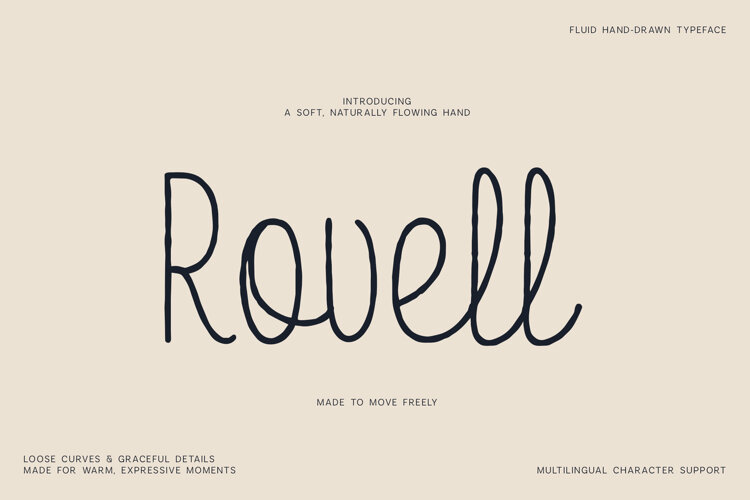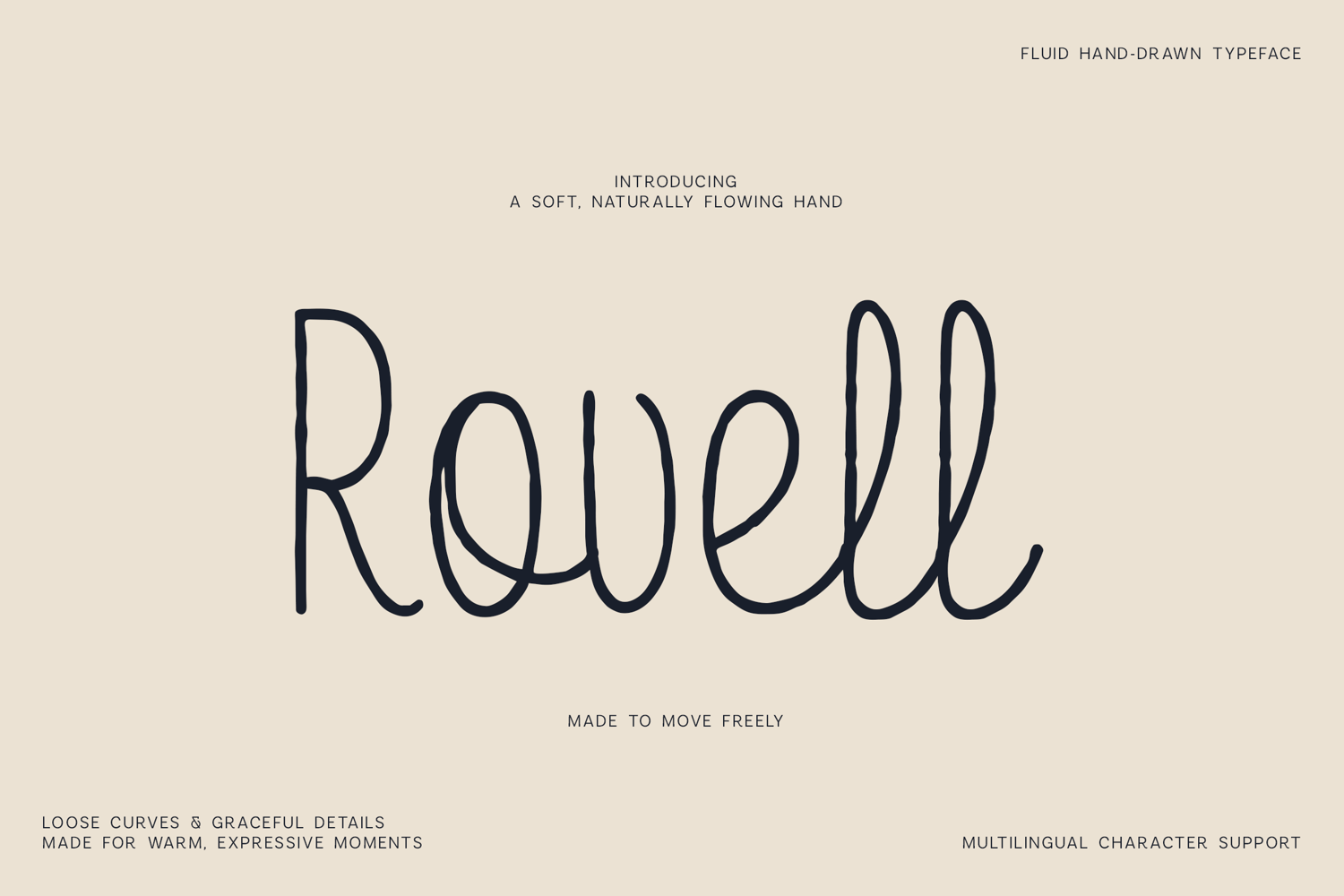
Add warmth and personality to your work with Rowell, a handwritten font designed with flowing strokes, soft curves and a naturally expressive feel.
Rowell gives your typography a relaxed handwritten appearance that works beautifully in branding, quote graphics and creative packaging. Its forms feel genuine and fluid, helping designs look more human and approachable.
This handwritten font is especially suitable for:
Rowell is a great choice when you want lettering that feels light, friendly and naturally written.
Use this handwritten font for projects that need a soft, expressive style without losing clarity and charm.